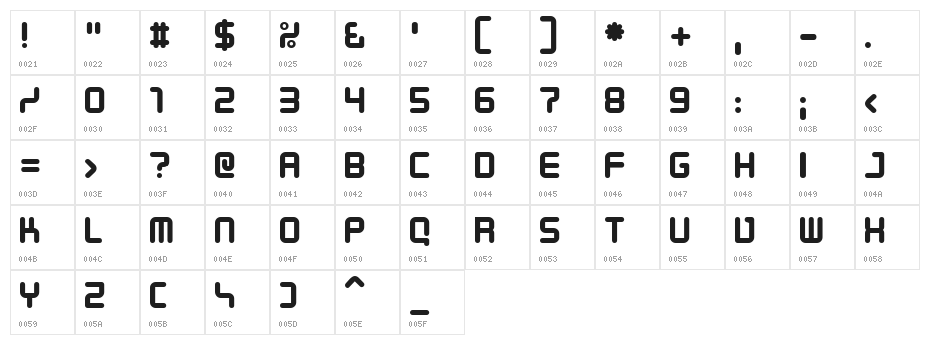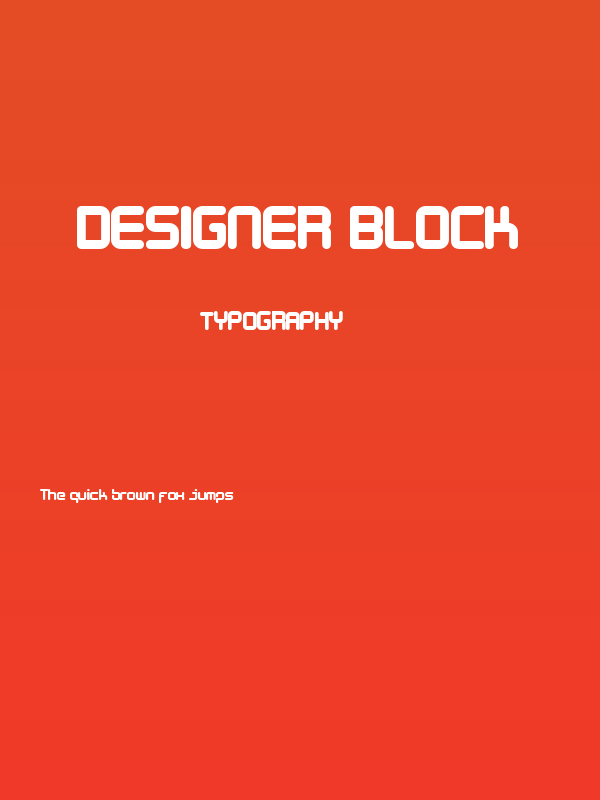
Designer Block Font
Designer Block Description
This font features a bold, geometric design with rounded edges, creating a modern and futuristic appearance. The characters are uniformly structured, with consistent stroke thickness that gives a sense of stability and strength. The rounded corners soften the overall look, making it approachable while maintaining a sleek, contemporary feel. The font is highly legible, with clear distinctions between each character, making it suitable for various design applications. Its unique style is both eye-catching and versatile, ideal for projects that require a modern and dynamic touch.
Proposed ProjectsIdeal for branding, headlines, posters, and digital interfaces where a modern and bold statement is needed.